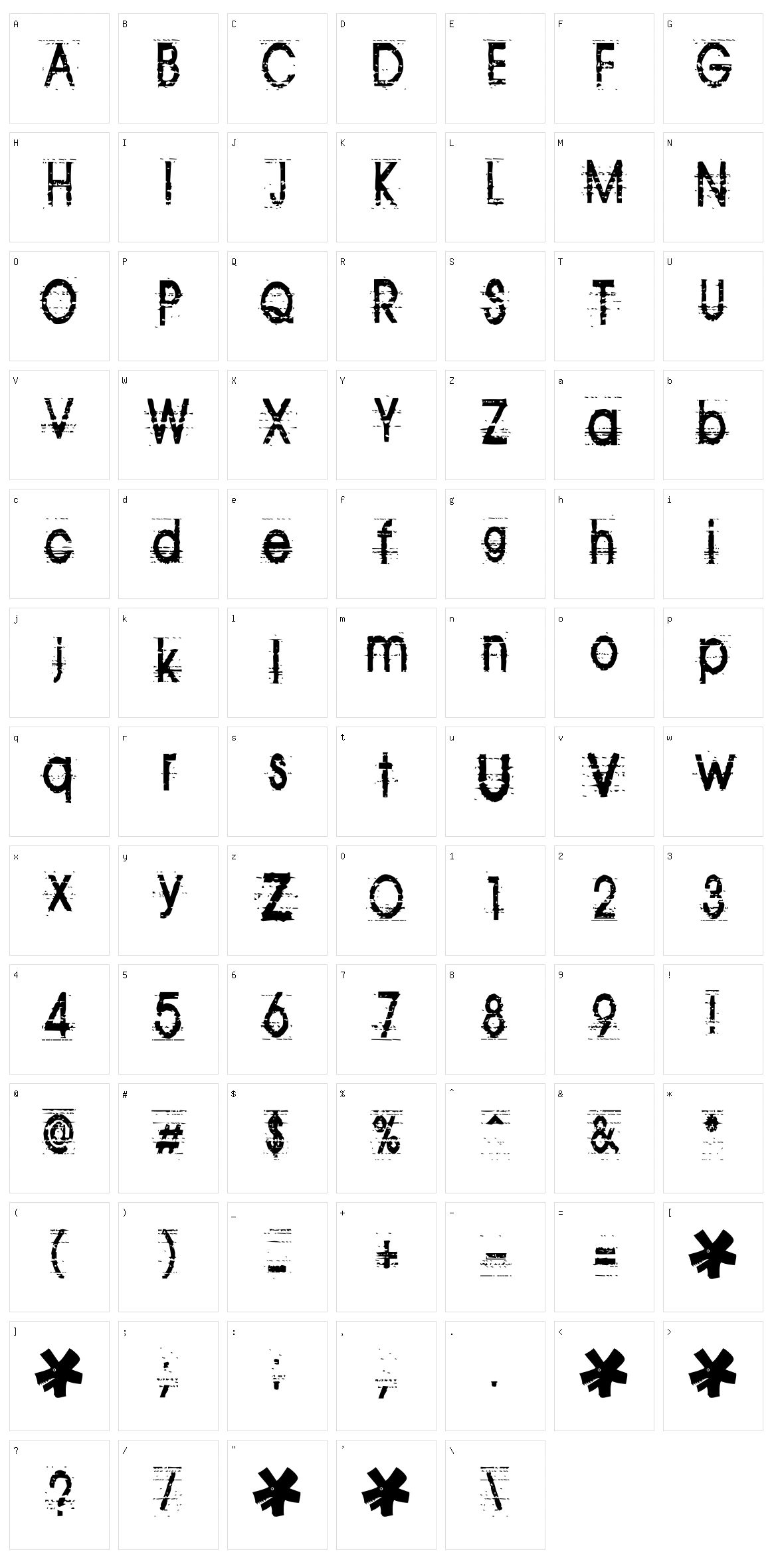
The free font Tom Violence is carefully designed by pOPdOG fONTS, showcasing a thoughtful balance of creativity and usability and falls under the Destroy font style. When you download the ZIP file, it contains only 152.65 KB of font files, making it lightweight and quick to download. Please review the license details below to understand permitted usage and distribution rights. If license information is not available, we recommend using this font for personal projects only or contacting the author directly for commercial usage permissions.